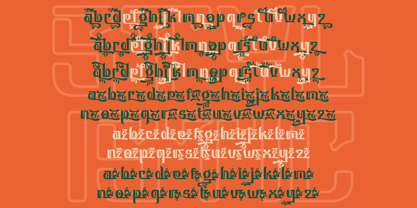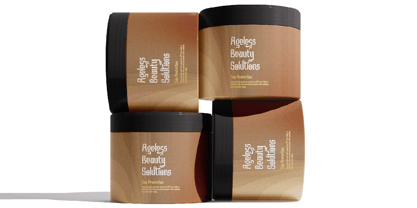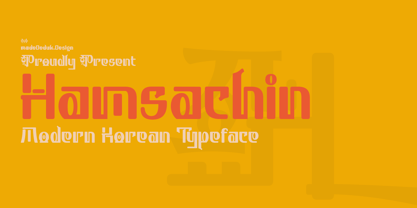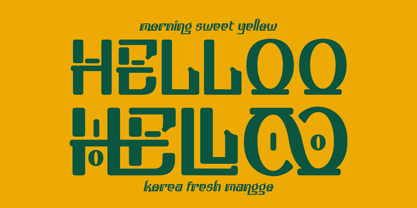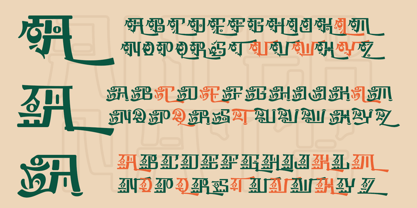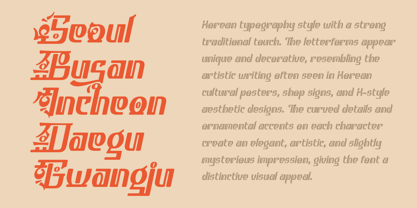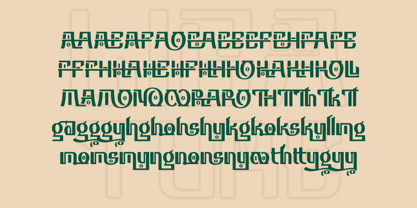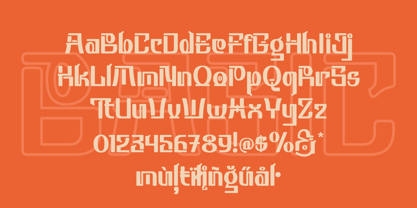
Hamsachin
by madeDeduk
The Hamsachin Font Family was designed by madededuk and published by madeDeduk. Hamsachin contains 2 styles and family package options. More about this family
Introducing Hamsachin, this font presents a modern Korean typography style with a strong traditional touch. The letterforms appear unique and decorative, resembling the artistic writing often seen in Korean cultural posters, shop signs, and K-style aesthetic designs. The curved details and ornamental accents on each character create an elegant, artistic, and slightly mysterious impression, giving the font a distinctive visual appeal. In addition, this font creates a stylish Korean atmosphere through its dynamic and neatly structured characters. It is suitable for logos, posters, branding, and social media content with a Korean theme because it delivers a classy, aesthetic look. The combination of traditional and modern elements makes this font visually attractive and different from ordinary typography styles.